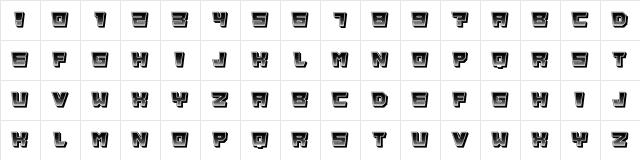
Energy Negative Regular Free Font
Energy Negative Regular
Complete Energy Negative Regular glyph index. Displaying only characters natively supported by Energy Negative Regular font.
Design Context for Energy Negative
Energy Negative is a composed and adaptable typeface that performs quietly and consistently across a wide range of design contexts.